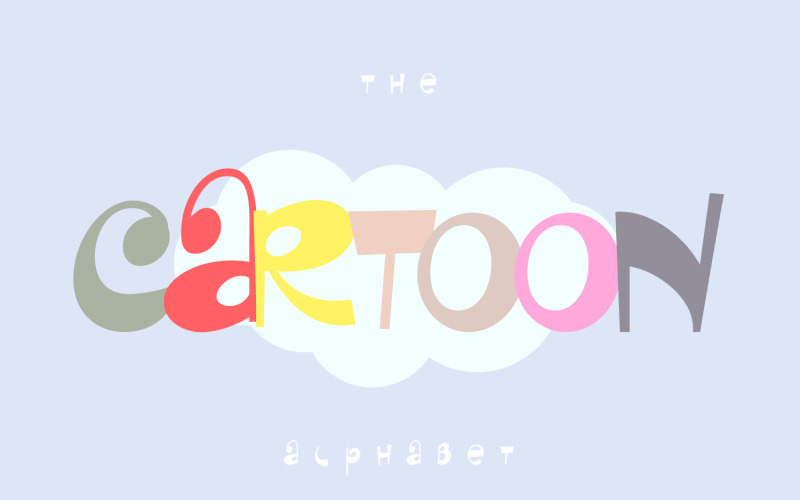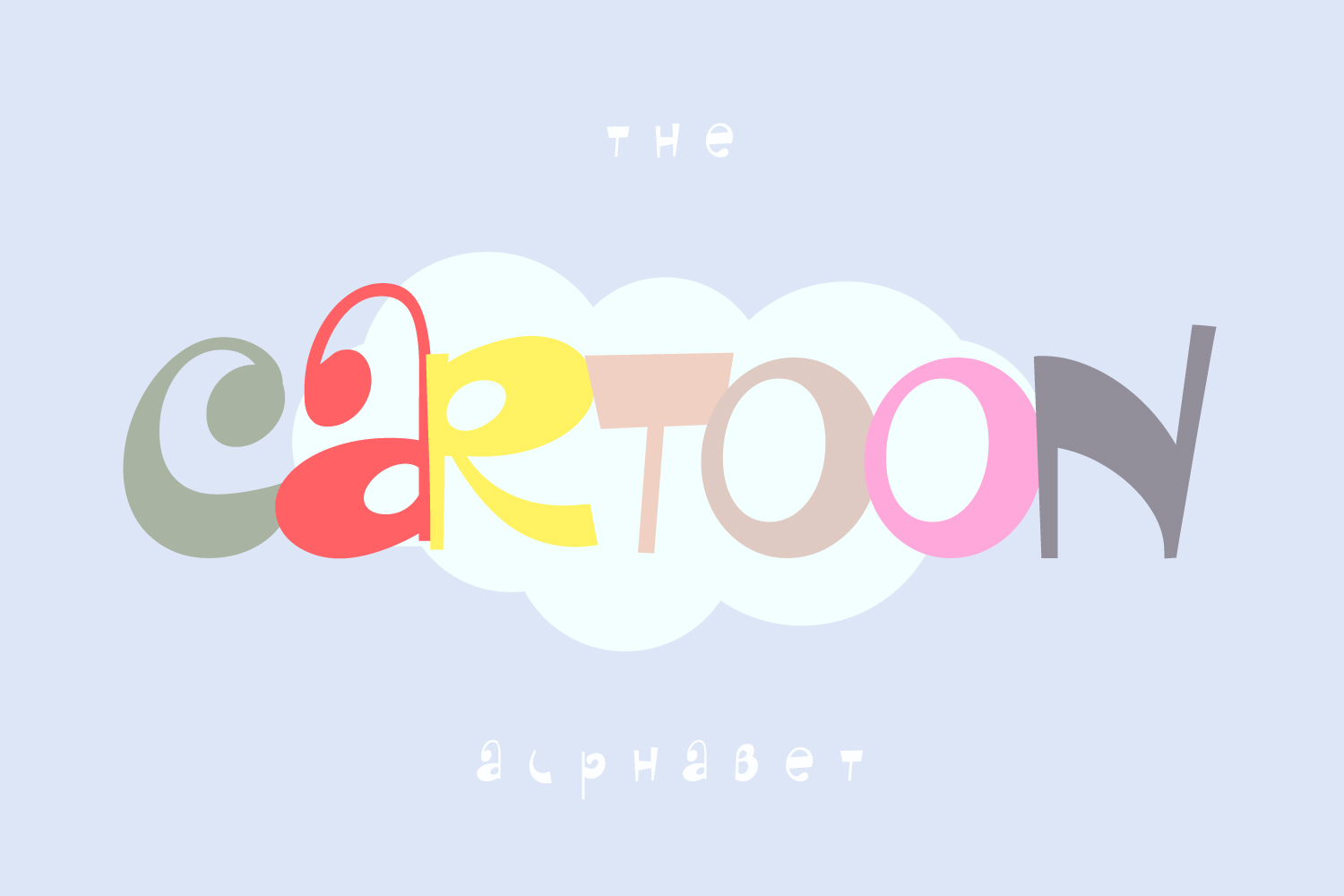
Cartoon Fun Cheeky teenage Font
The Cartoon - font is a fun typeface with cheeky teenage or mischievous childish character.
Suitable for amazing projects: game, toys, comic books, movie or music, and especially logo and headline.
The Cartoon - is a childish and playful letter and symbols set, inspired by kids series and children's style.